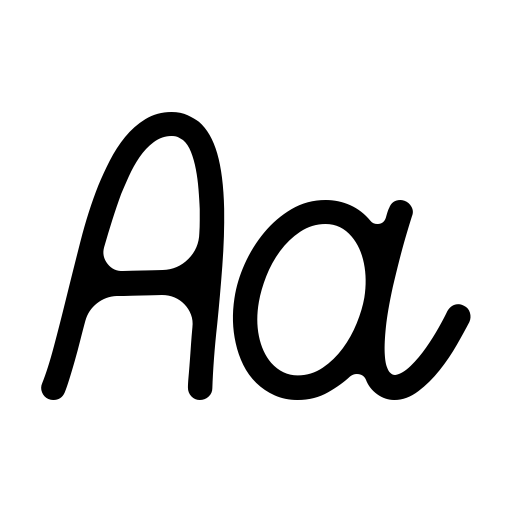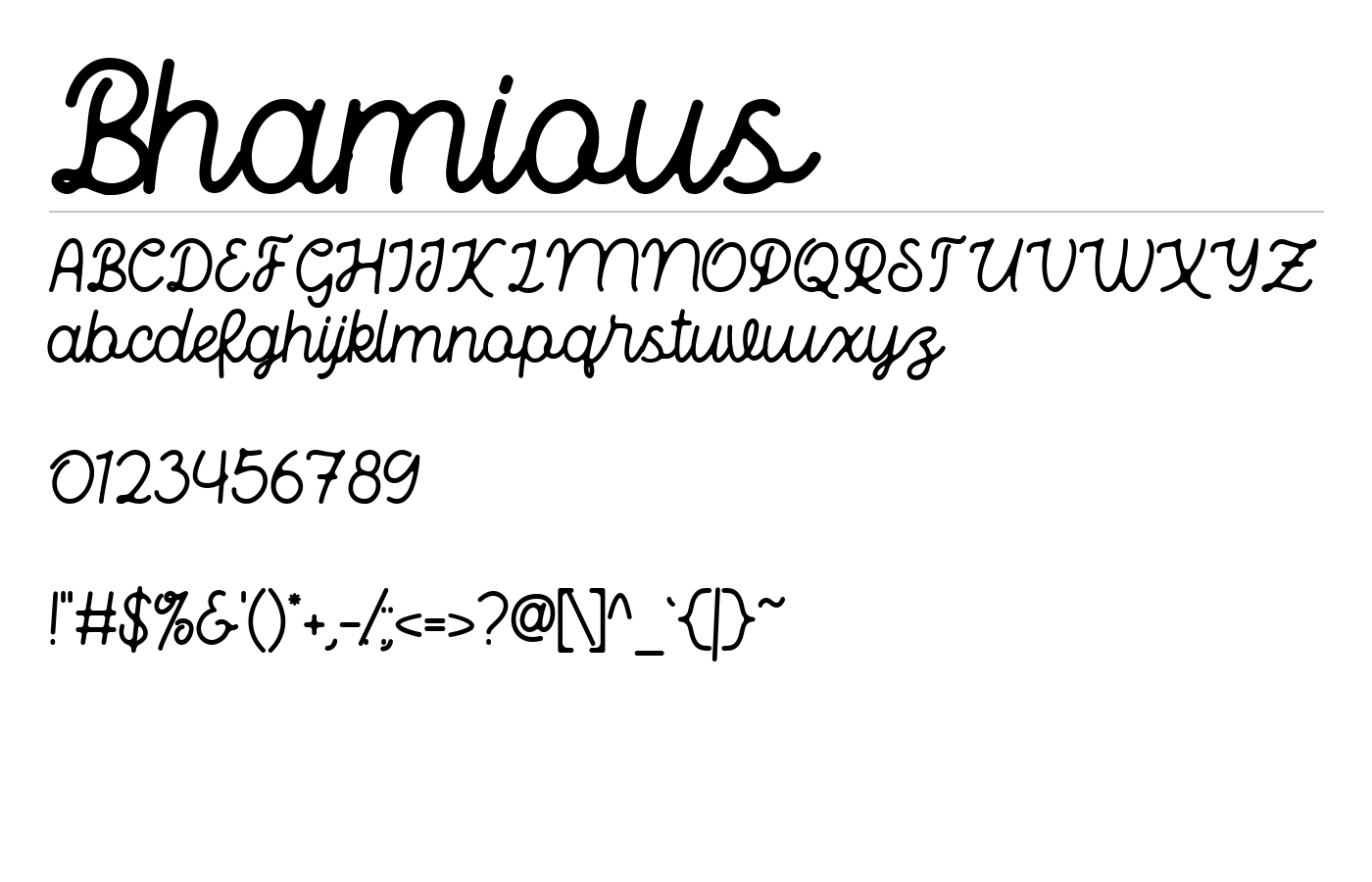
Bhamious is a playful script font featuring smooth, rounded strokes with a consistent light weight and a lively, handwritten feel. Its balanced, single-story letterforms and fluid connections give it an inviting and casual personality, making it perfect for creative branding, invitations, and informal editorial design where warmth and approachability are key. This font works best in settings that benefit from a personal, friendly touch, combining elegance and simplicity with a modern, relaxed vibe.
Bhamious Font
About Bhamious Font
| Font family | Bhamious Font |
| Designer | Rometheme |